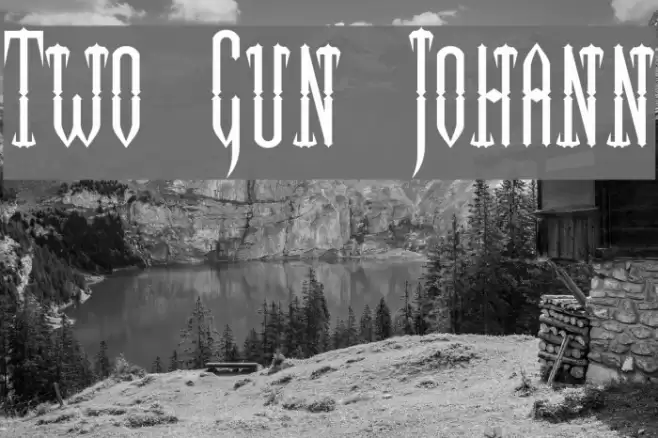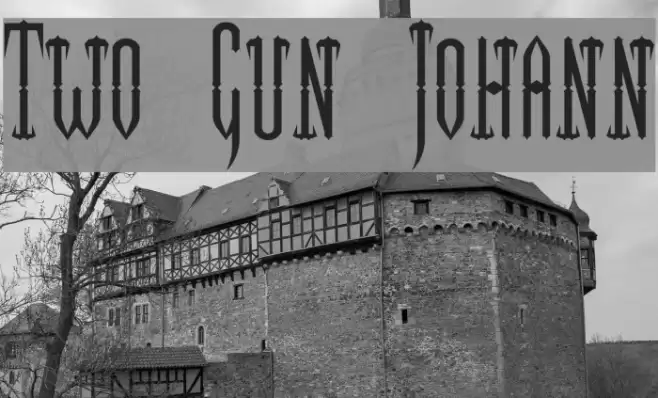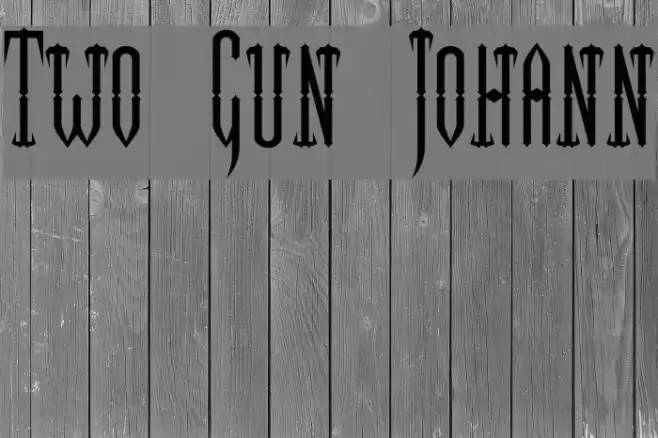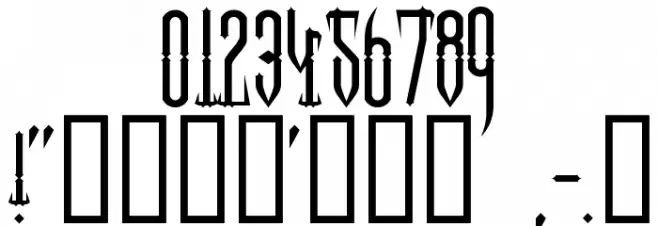
Two Gun Johann Font
Two Gun Johann Description
This font features a striking, elongated design with sharp, pointed serifs that evoke a sense of drama and intensity. The vertical emphasis is pronounced, giving each character a tall and narrow appearance. The strokes are consistent in width, creating a uniform look across all letters. The uppercase and lowercase letters maintain a cohesive style, while the numerals and special characters complement the overall aesthetic. The font's unique style makes it stand out, with a gothic or medieval flair that adds a touch of mystery and elegance.
A dramatic, elongated font with sharp serifs and a gothic flair from Decorative fonts.
- Proposed Projects: Ideal for use in posters, book covers, or branding that requires a bold, dramatic statement.
- Overall Style: Gothic, Decorative